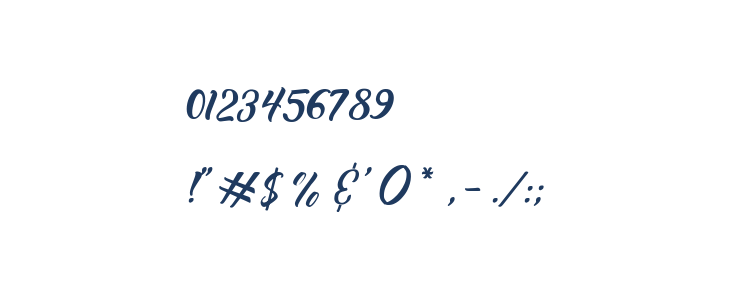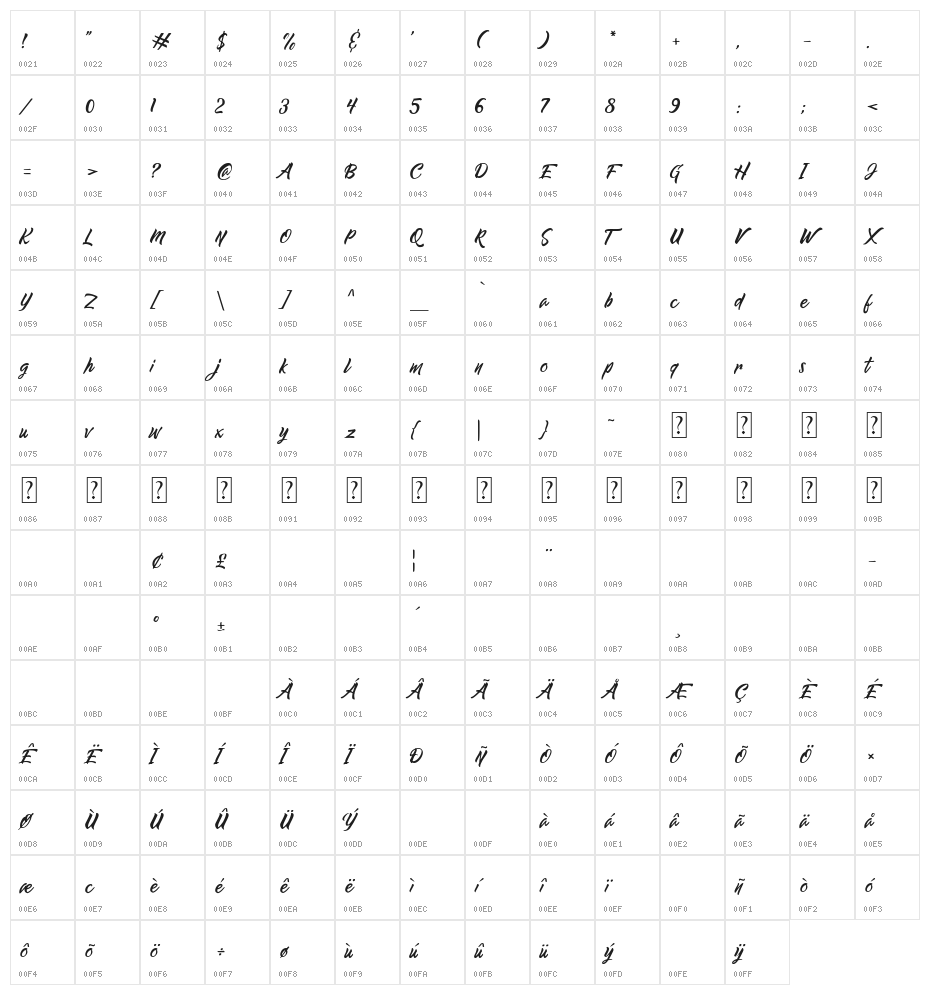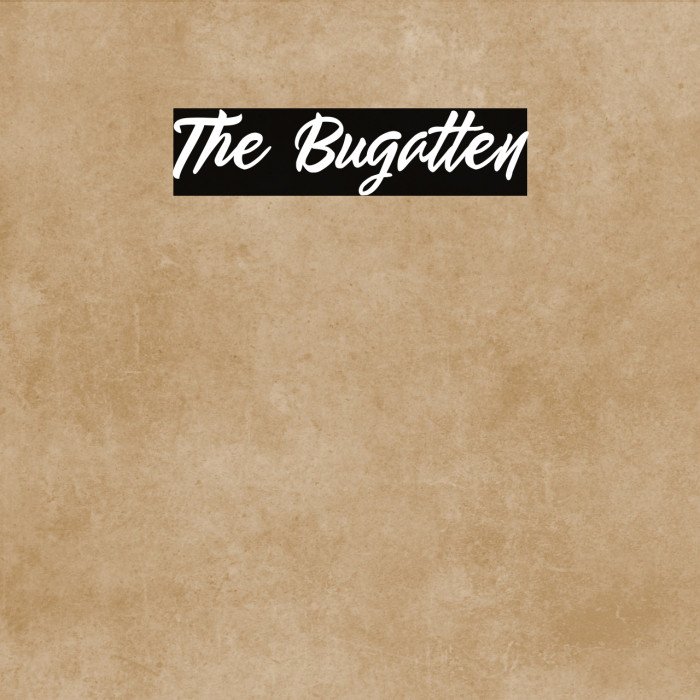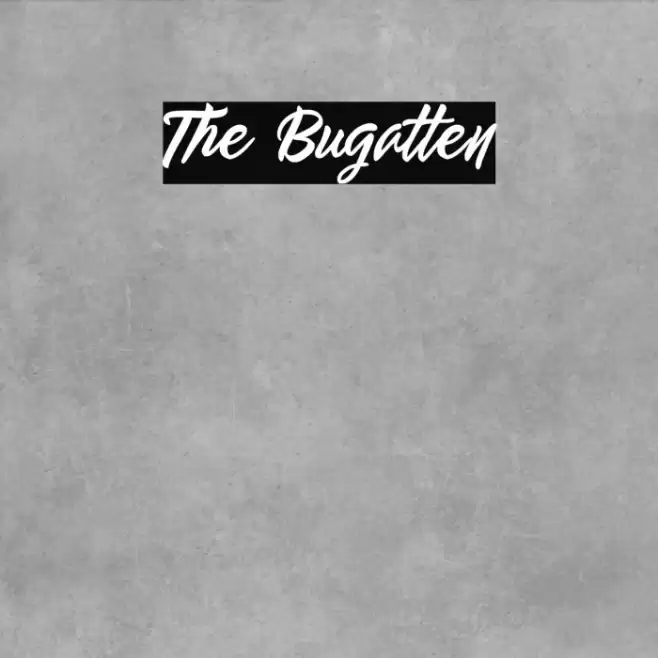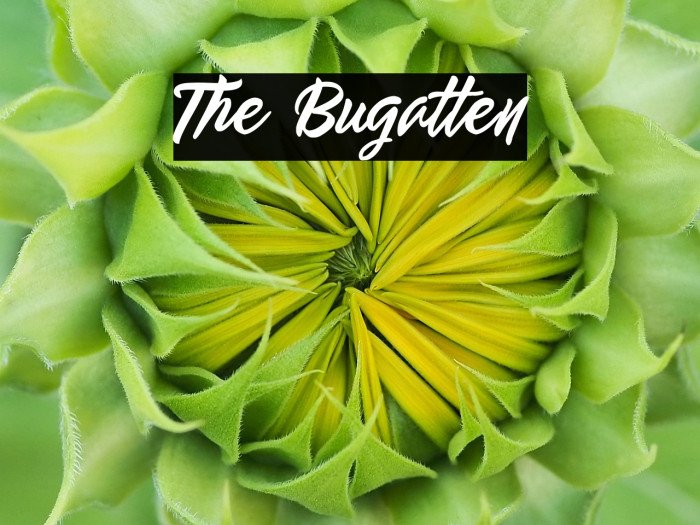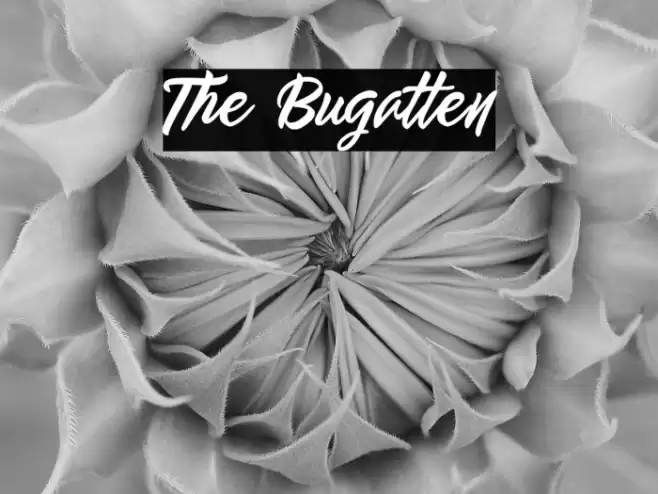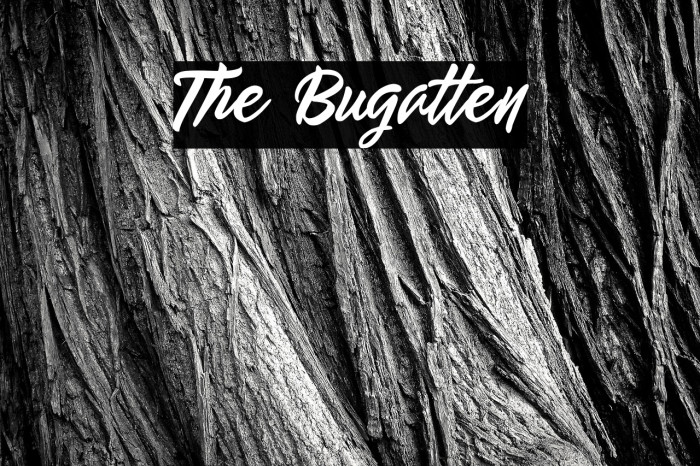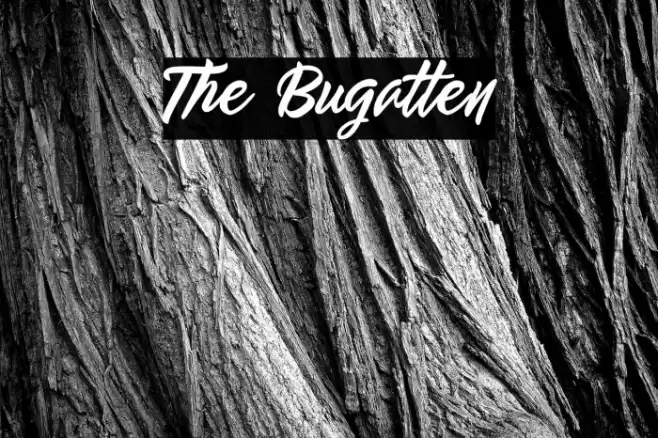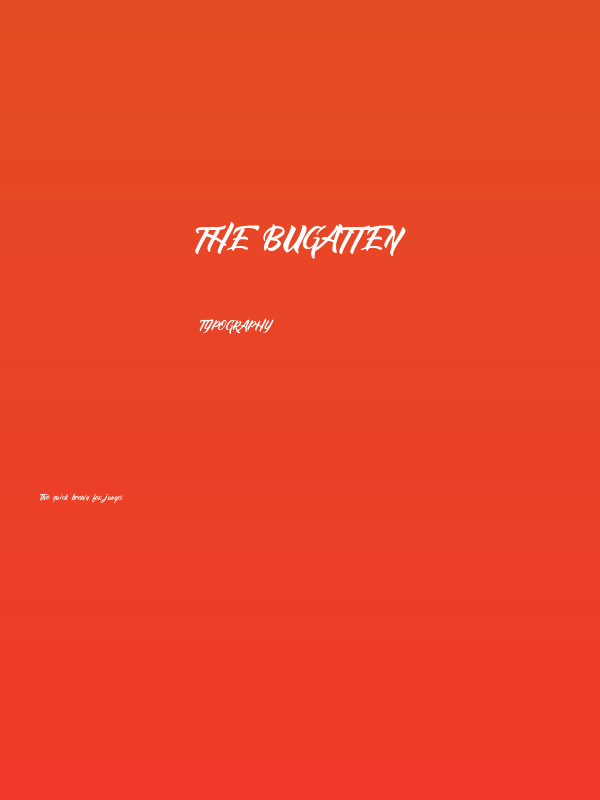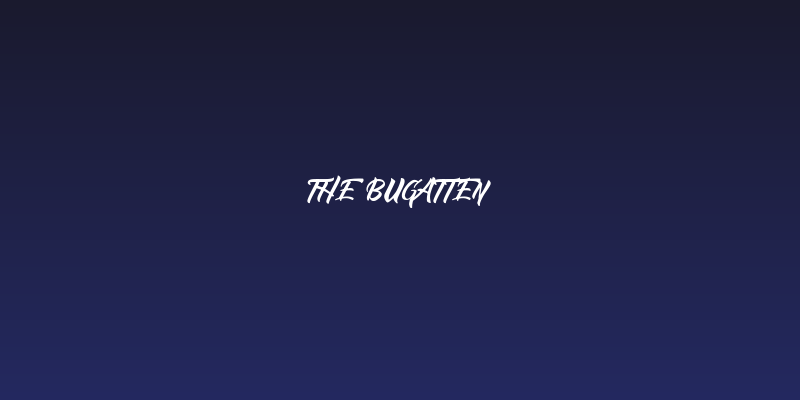
The Bugatten Font
The Bugatten Description
This font features a dynamic and flowing script style, characterized by its bold and expressive strokes. The letters are interconnected with a smooth, cursive flair, giving it a sense of movement and elegance. The uppercase letters are slightly more elaborate, with sweeping curves and flourishes, while the lowercase letters maintain a consistent rhythm and balance. The numerals are clear and distinct, matching the overall aesthetic of the font. Special characters are designed with the same attention to detail, ensuring a cohesive look across all glyphs.